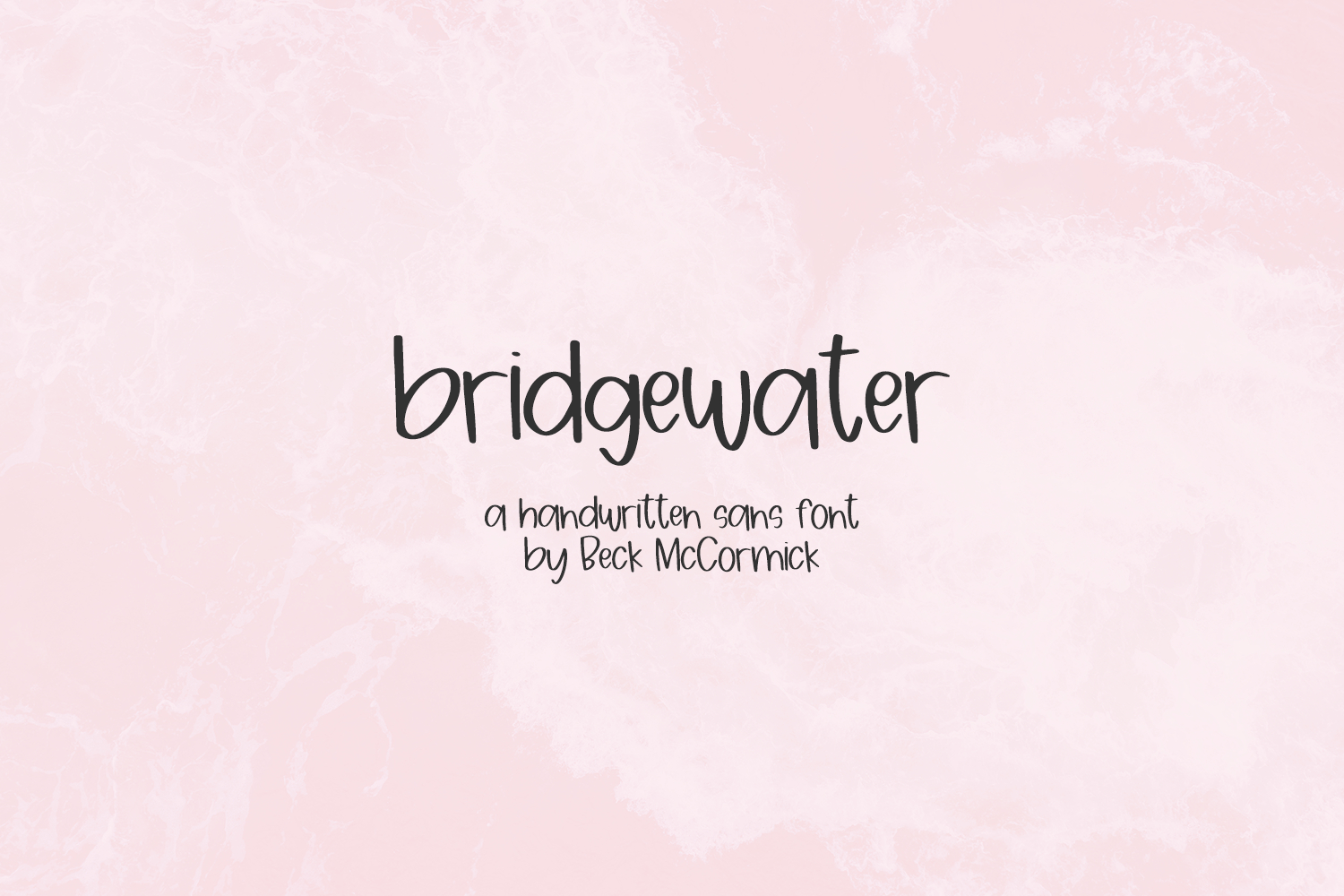
Bridgewater Sans Font
Introducing Bridgewater, an adorable handwritten sans font. Bridgewater is neat & tidy, and would be best for digital planner apps like GoodNotes or using as handwriting practice on an iPad. You can also use it for note-taking apps to make your study notes effortlessly cute, but easy to read. Pawley can also be used for other print design like magazines and flyers or printed marketing materials. This font can also be used for digital marketing materials and social media items!